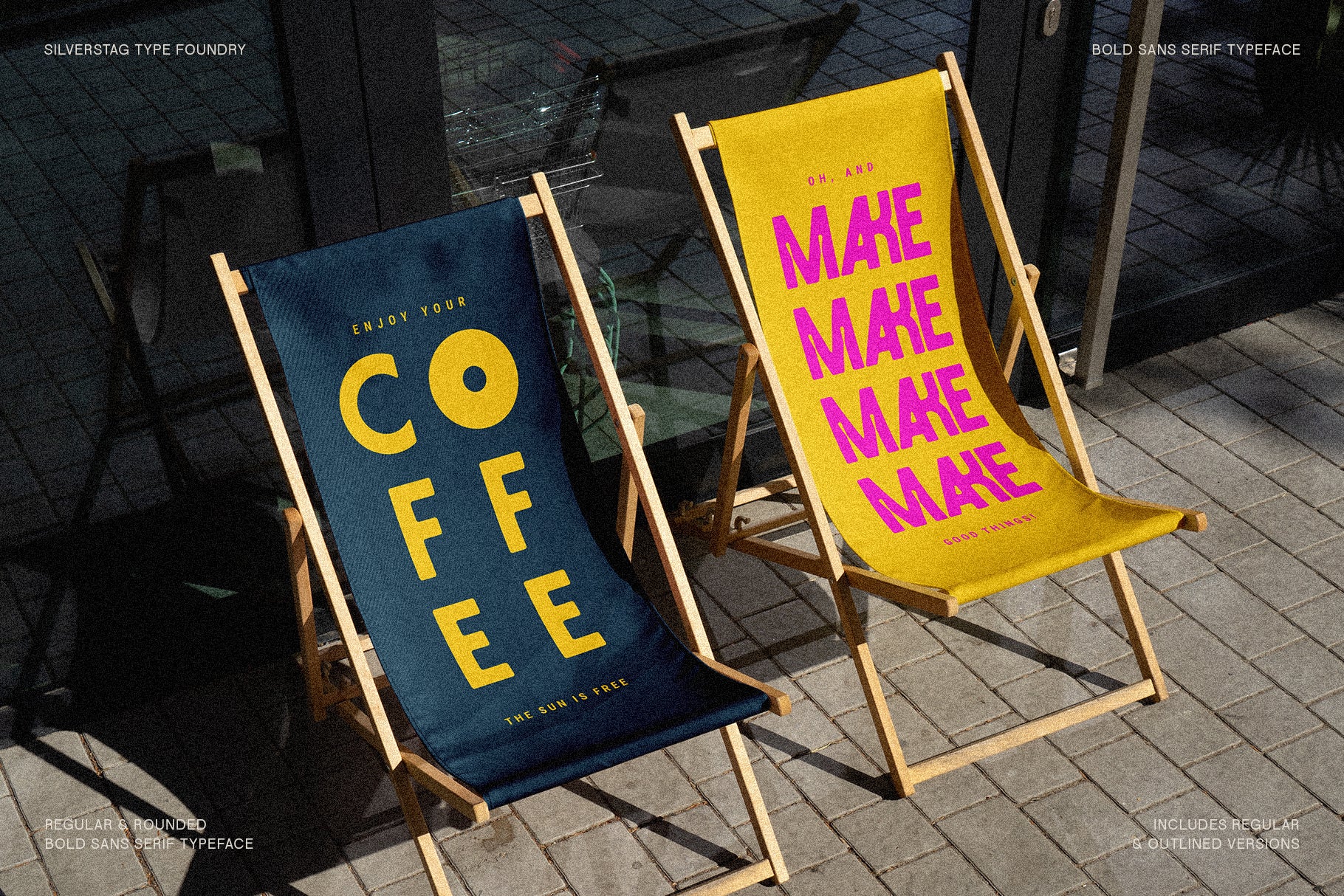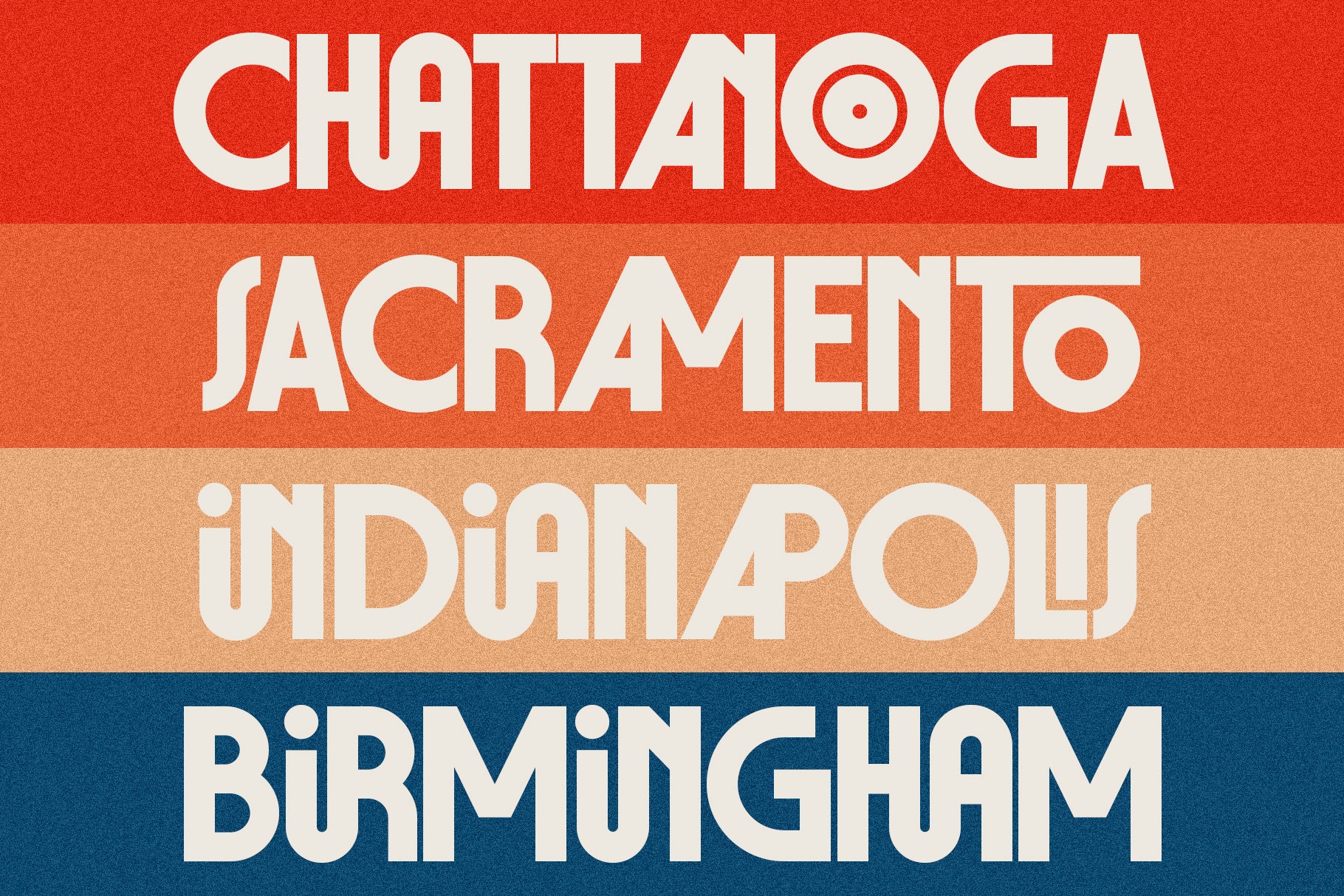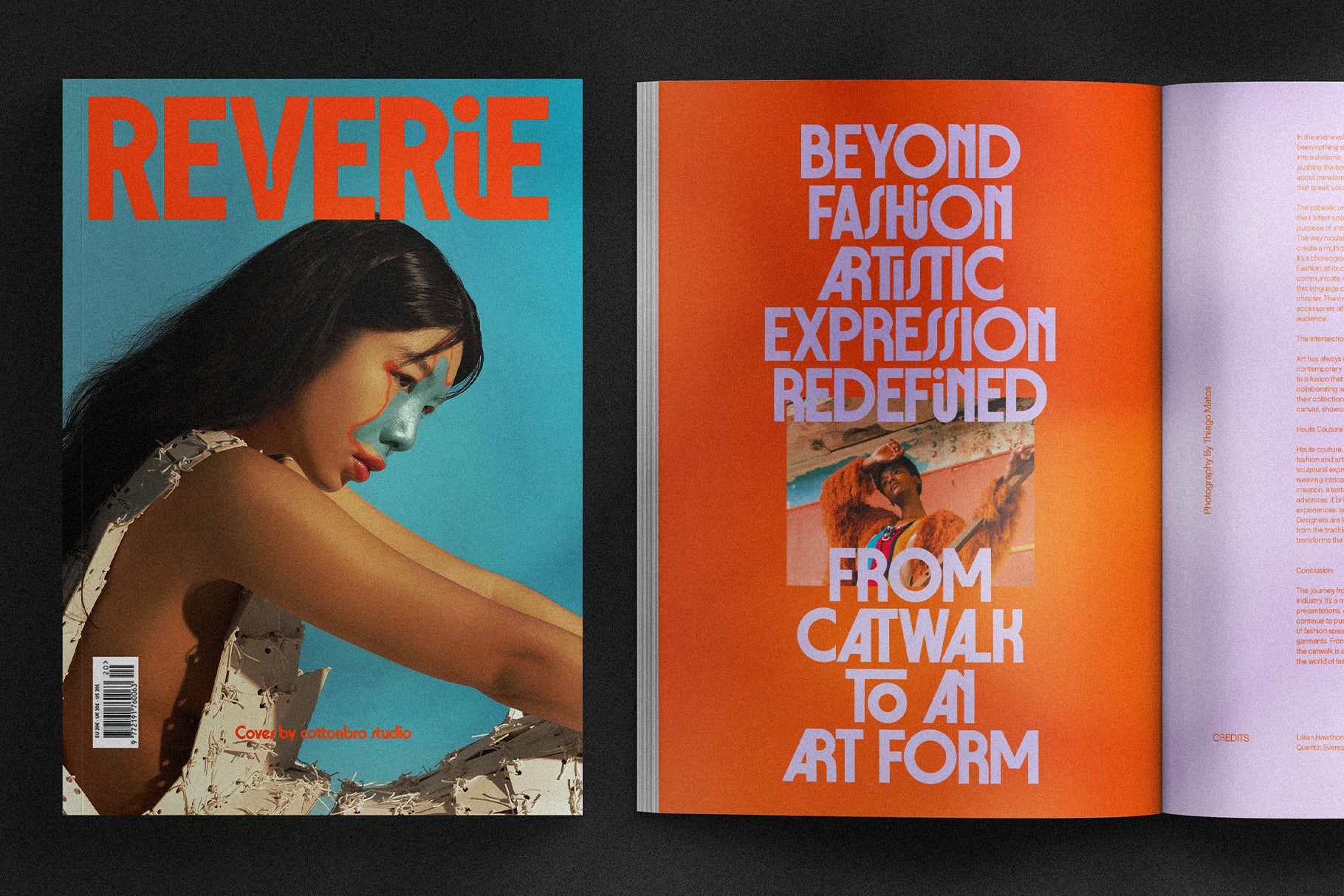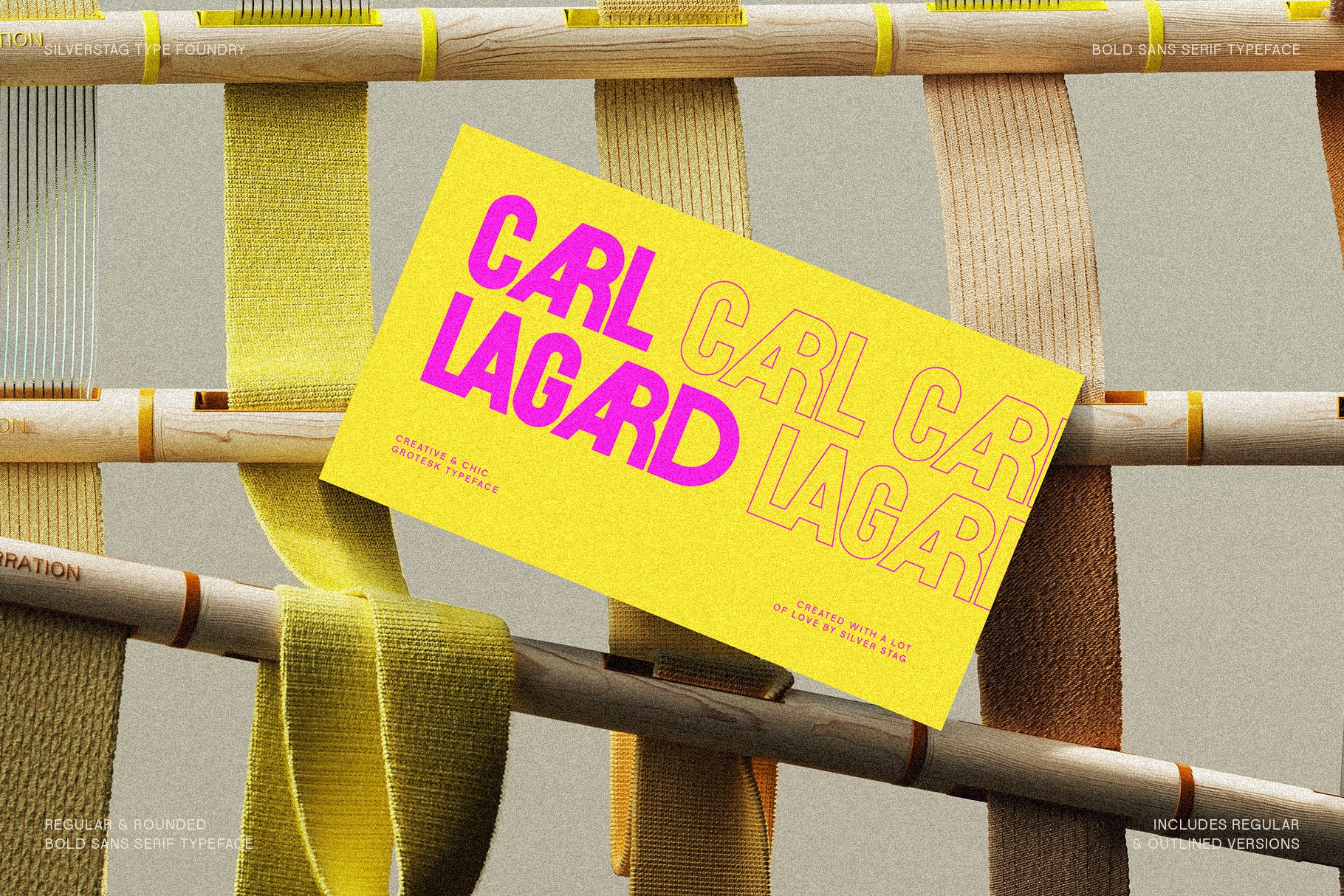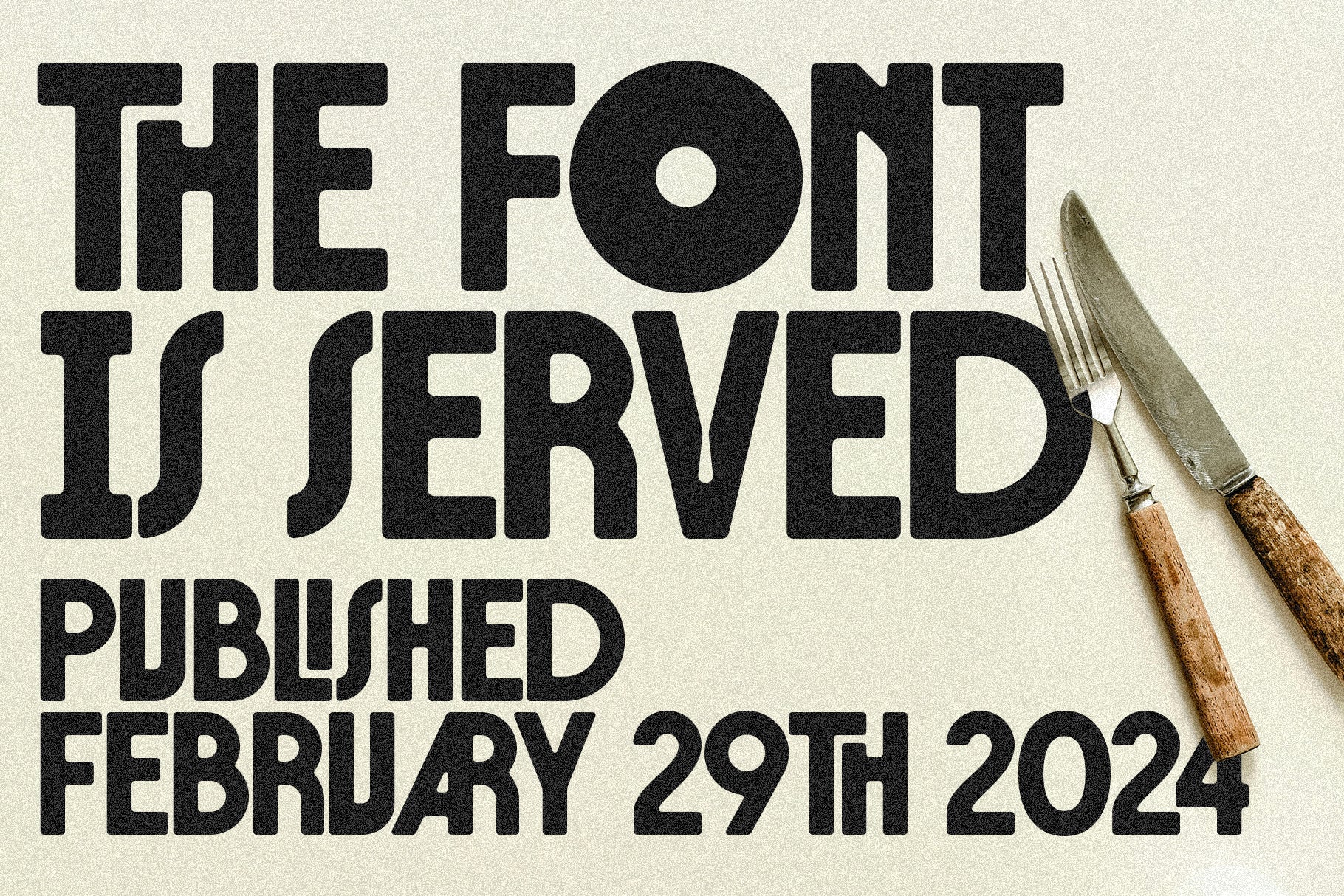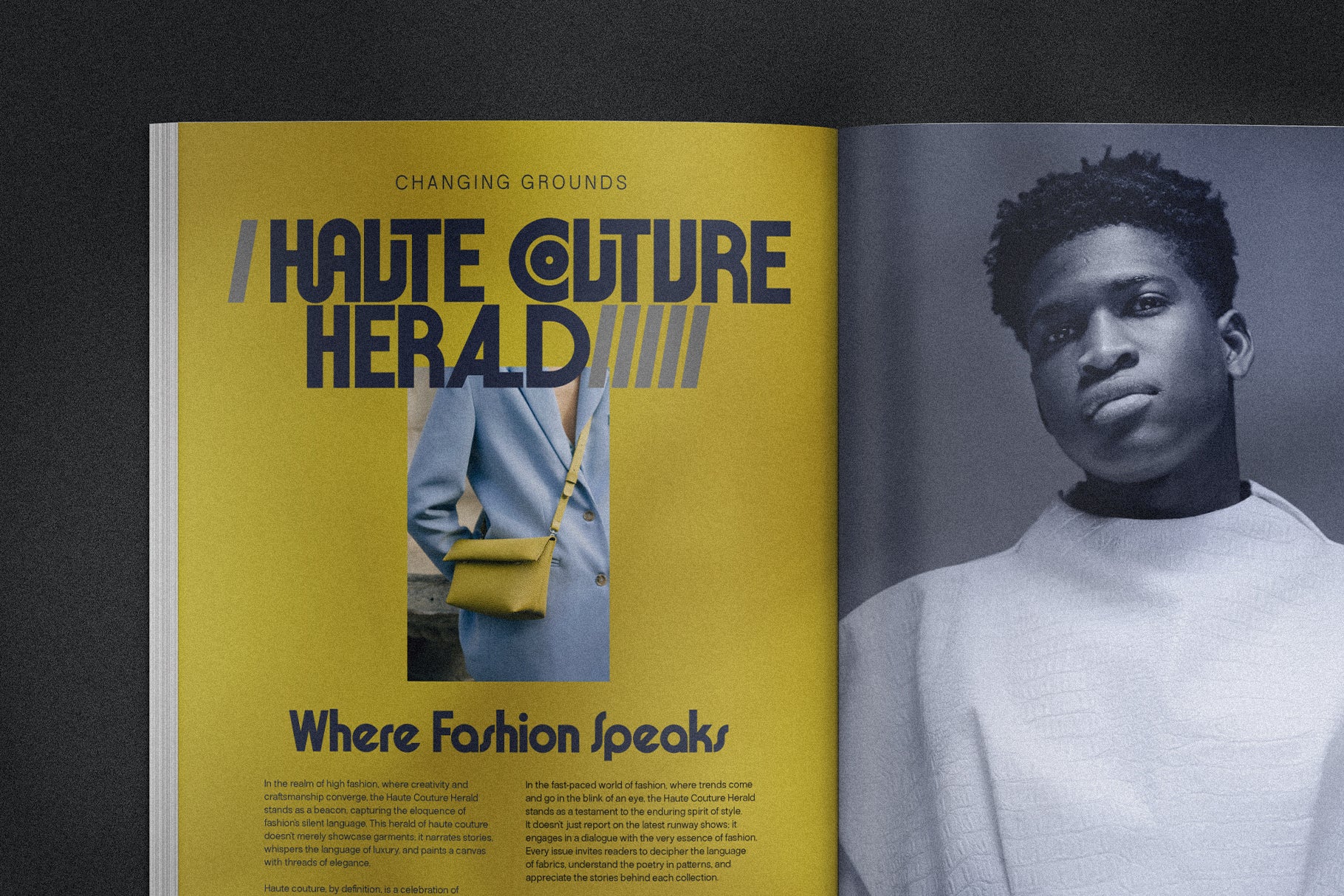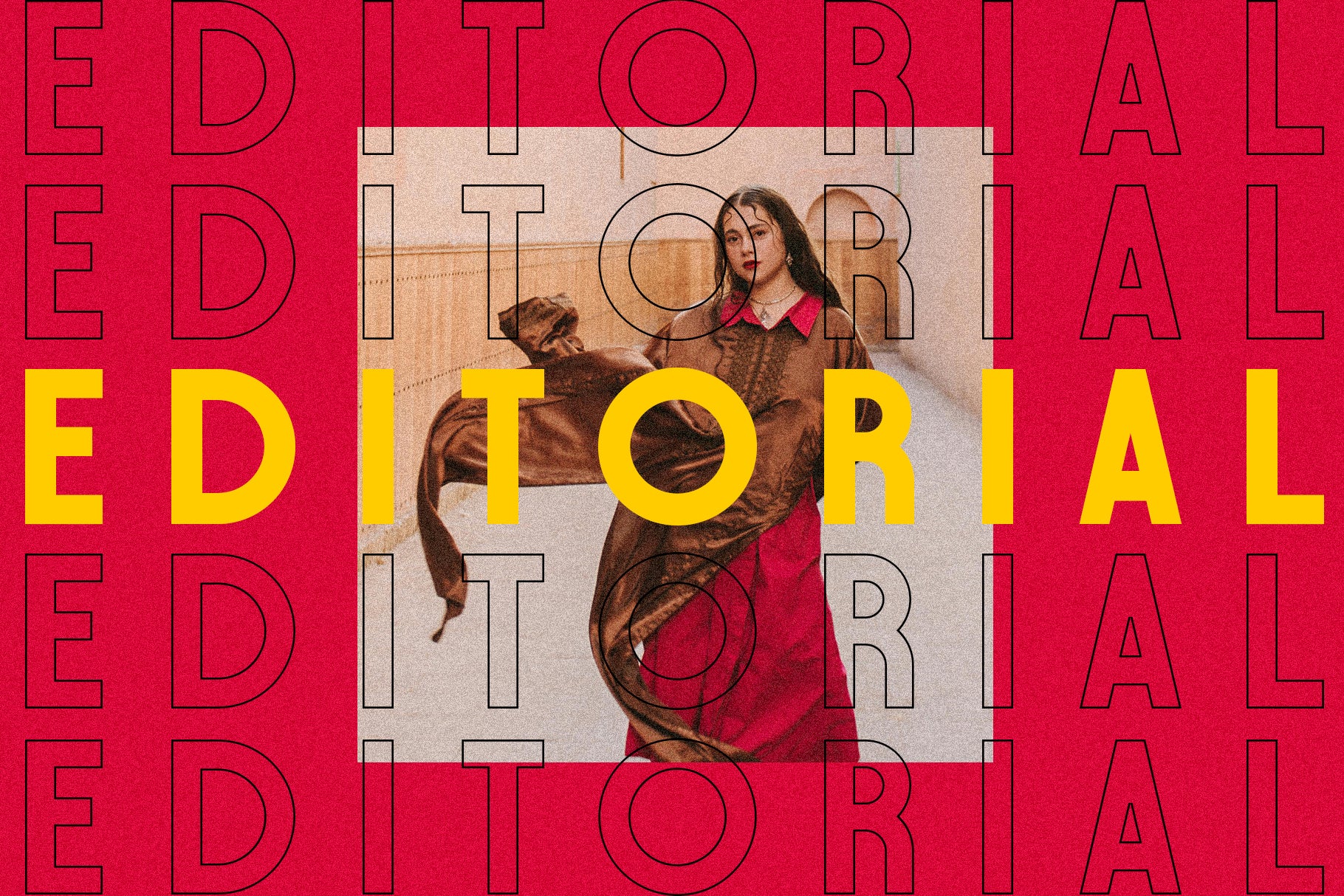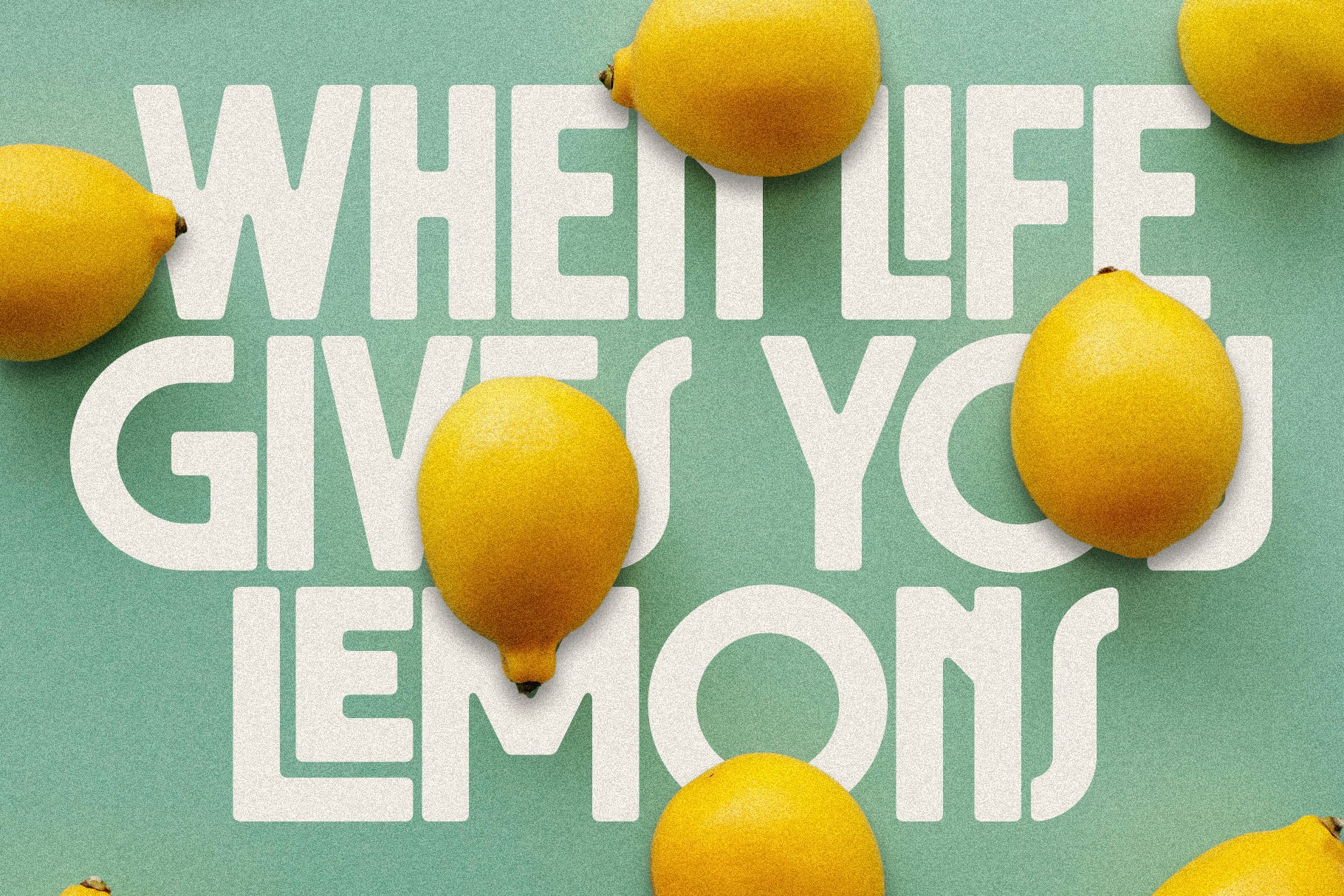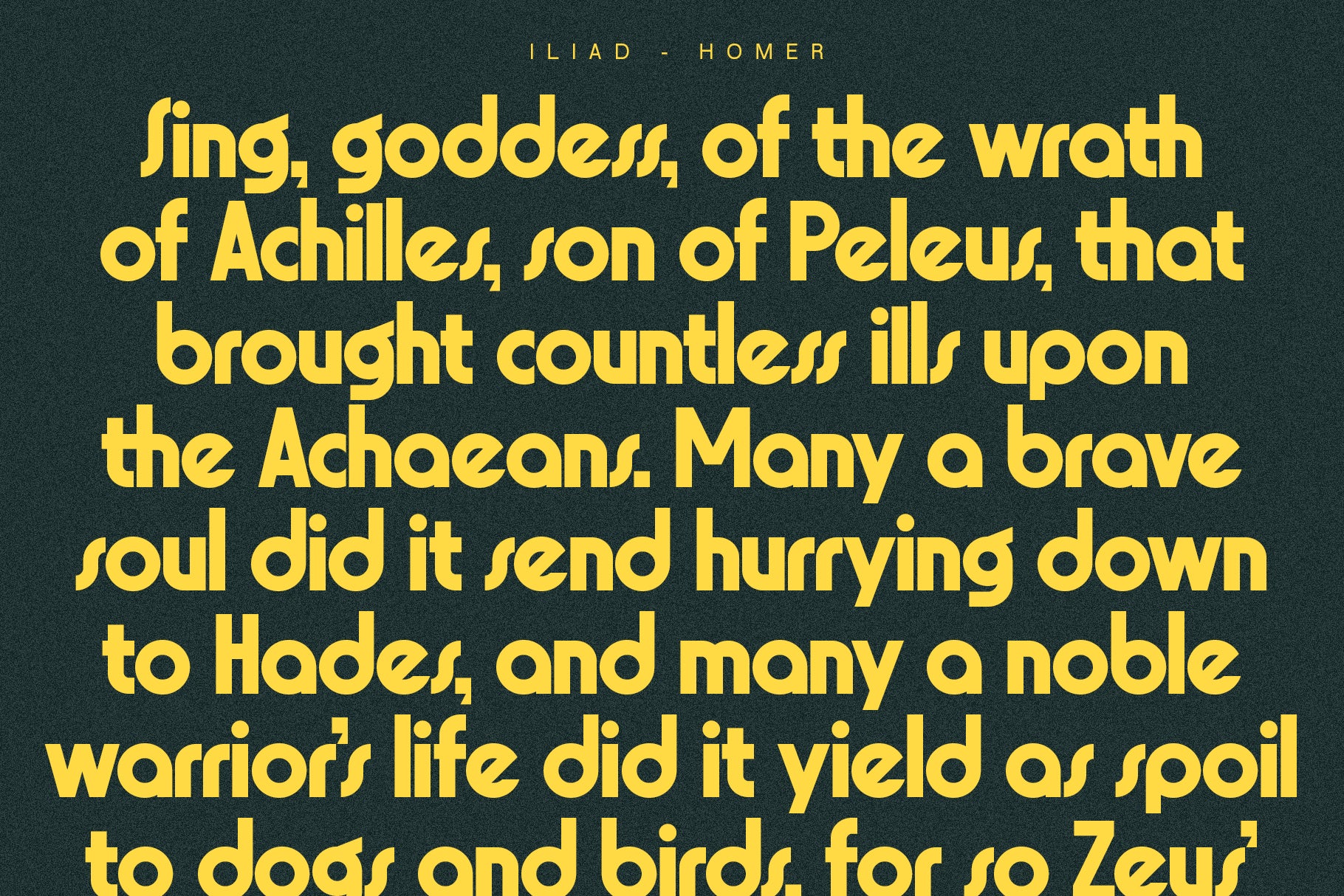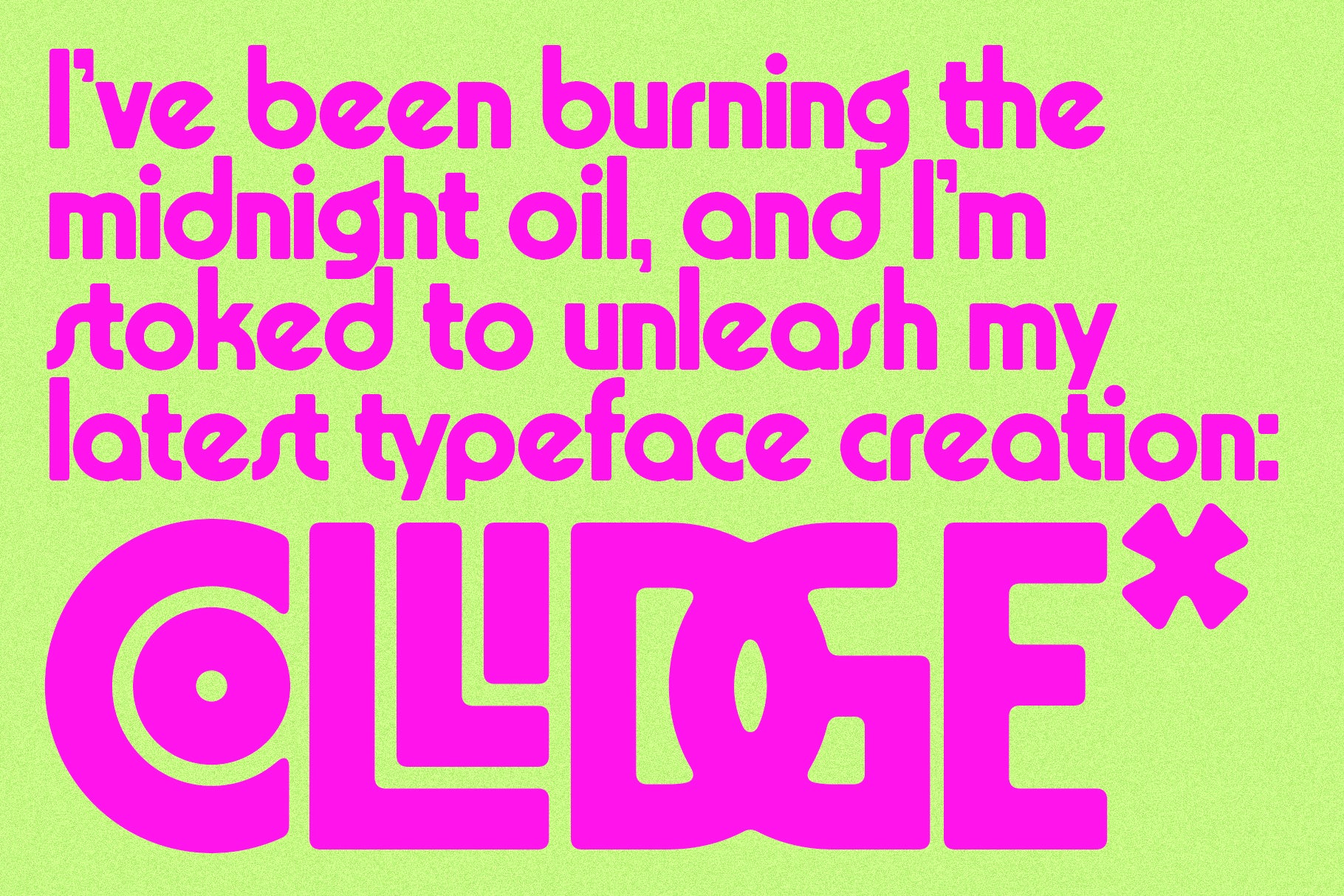
Collidge is a fearless sans serif font made for maximum impact. With chunky strokes, bold angles, and four versatile styles—Regular, Regular Outlined, Rounded, and Rounded Outlined—Collidge is built to own headlines, branding, and anything that needs unapologetic energy.
Designed for visual punch, Collidge includes over 150 ligatures and alternates that let you create standout typography with personality and edge. From sharp and structured to smooth and rounded, each version offers a unique twist to match your creative vision.
Whether you’re designing for streetwear, sports branding, posters, logos, or editorial spreads, Collidge brings serious presence and modern flair. And with multilingual support for 90+ languages, it’s as powerful globally as it is visually.
Collidge is not just bold—it’s built to turn heads.